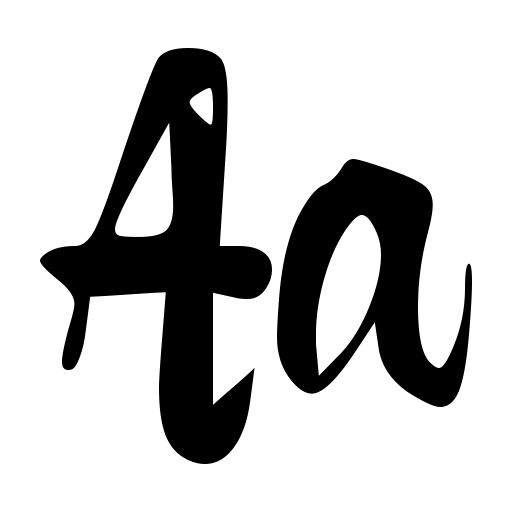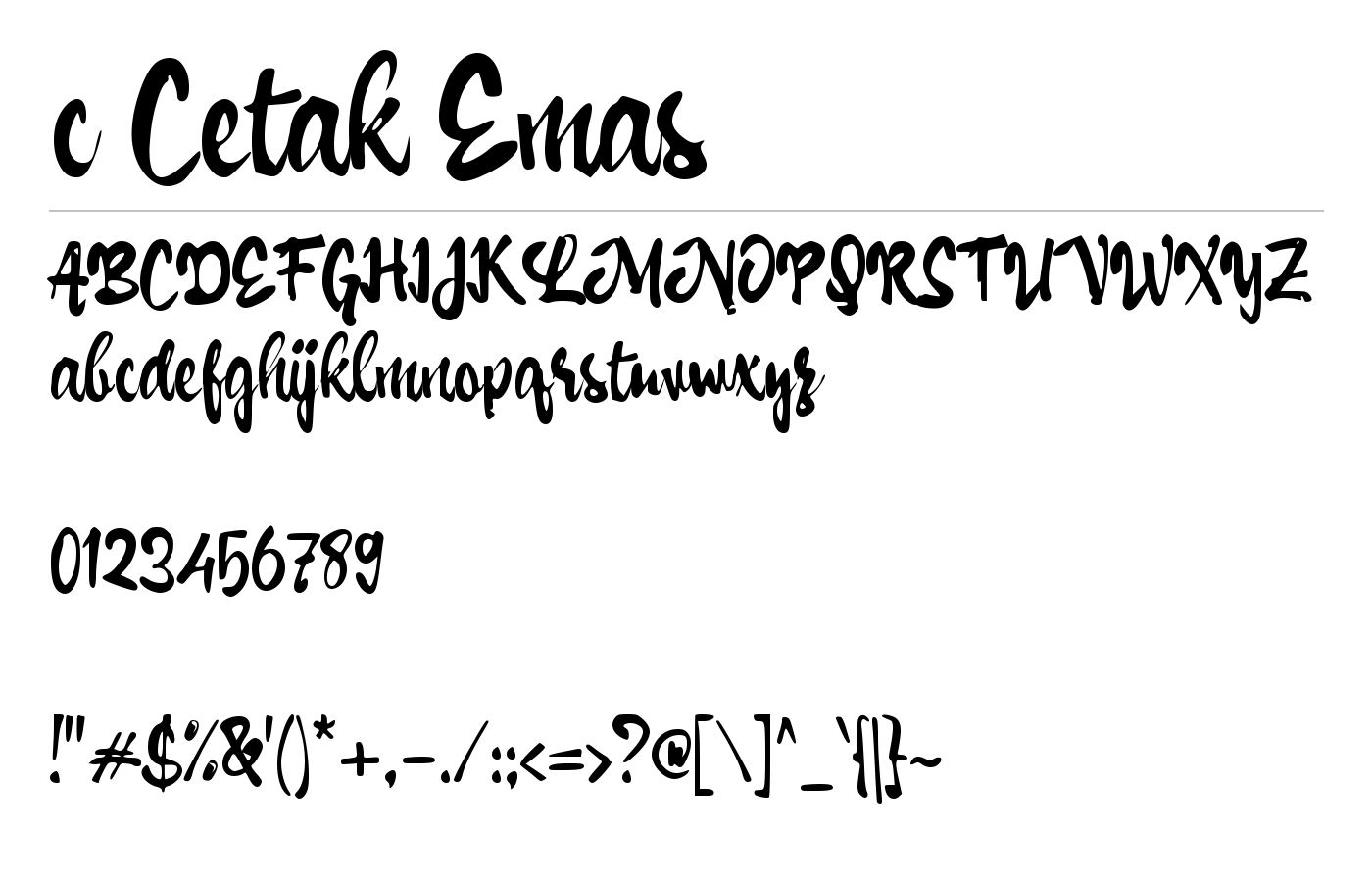
Cetak Emas is a bold, playful handwritten script font that combines lively brush strokes with a casual, organic feel. Its high contrast and dynamic shapes give it personality and charm, making it perfect for creative branding, invitations, or eye-catching headlines where a friendly and approachable tone is desired. This font’s expressive style works well in projects that seek to convey warmth and creativity.
c Cetak Emas Font
About c Cetak Emas Font